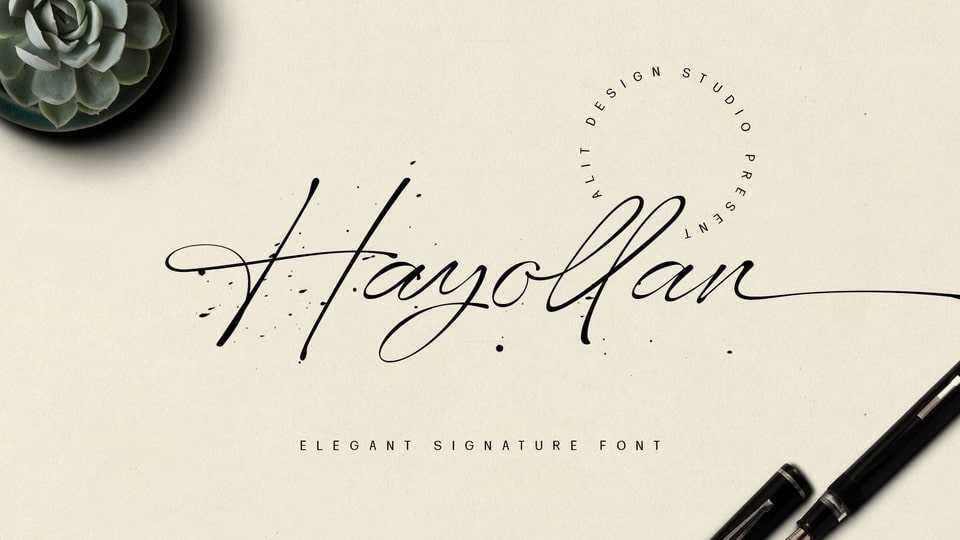
Download Hayollan font, a signature script typeface inspired by spontaneous and dynamic signature strokes with an ink texture that makes the font look real. Hayollan looks unique and charming and makes designs using the font look more prominent and cool.